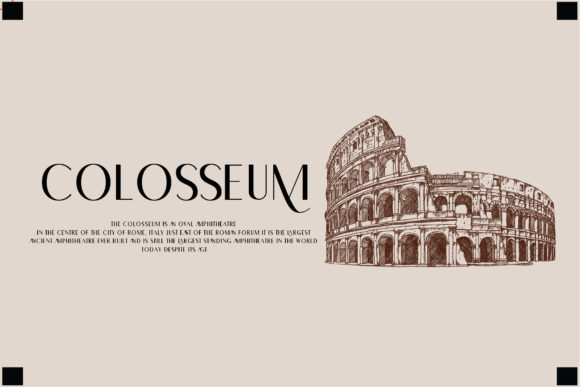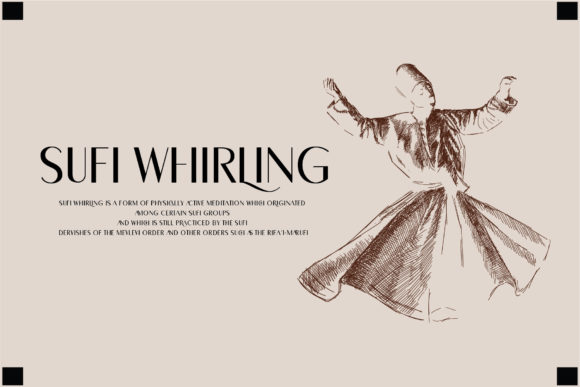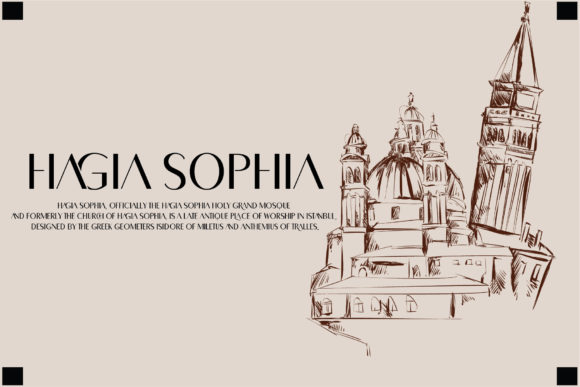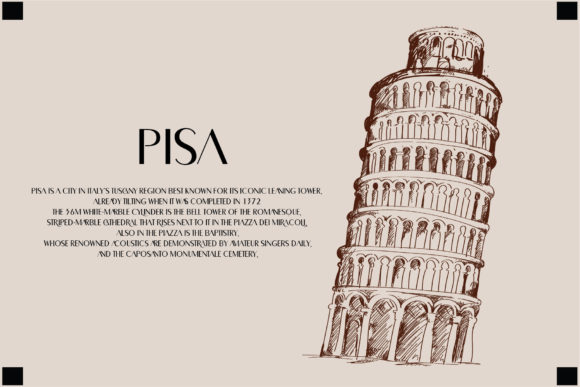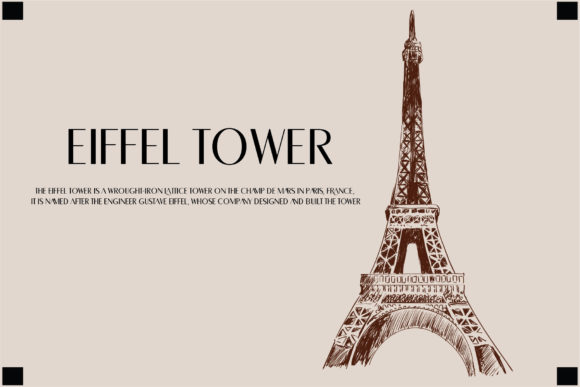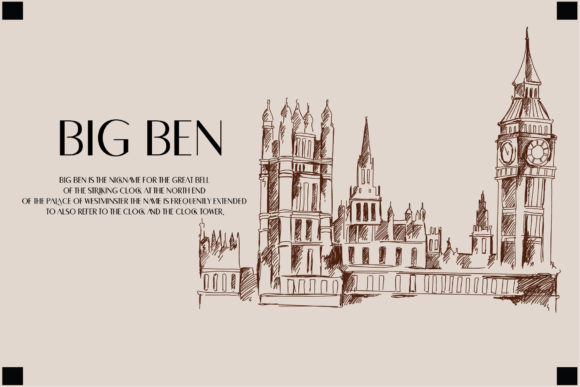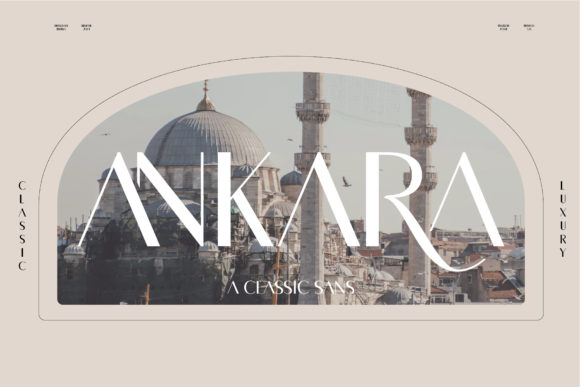
Discover the Elegance of Ankara Font: Elevate Your Designs with Luxury and Authenticity
In the world of typography, fonts play a crucial role in conveying the tone and personality of a brand or design. For creative projects that demand stylish and exquisite typography, the Ankara Font stands out as a splendid sans serif font created with luxury and authenticity in mind. In this article, we’ll explore the features and applications of Ankara Font, and why it’s perfect for personal branding projects, jewelry logos, fashion magazines, invitations, and more.
What is Ankara Font?
Ankara Font is a modern sans serif font designed to bring a touch of elegance and sophistication to any design project. Its clean lines, precise curves, and balanced proportions make it an ideal choice for designers seeking to create visually stunning typography. The font’s luxury aesthetic is perfect for high-end brands, fashion designers, and crafters who want to add a touch of exclusivity to their work.
Key Features of Ankara Font
- Luxurious and Authentic Design: Ankara Font boasts a unique and authentic design that exudes luxury and sophistication.
- Sans Serif Elegance: The font’s sans serif style provides a clean and modern look, perfect for designs that require a touch of elegance.
- Highly Versatile: Ankara Font is suitable for a wide range of design projects, from personal branding to fashion magazines and invitations.
- Easy to Read: The font’s clear and balanced design ensures excellent readability, making it perfect for body text and headlines.
Applications of Ankara Font
Ankara Font is an incredibly versatile font that can be used in various design projects, including:
- Personal Branding Projects: Create a lasting impression with Ankara Font’s luxurious and authentic design, perfect for personal branding projects that require a touch of exclusivity.
- Jewelry Logos: The font’s elegant and sophisticated design makes it an ideal choice for jewelry logos that require a high-end look.
- Fashion Magazines: Ankara Font is perfect for fashion magazines that demand stylish and exquisite typography.
- Invitations: Add a touch of luxury and sophistication to your invitations with Ankara Font’s elegant design.
- Packaging Design: Use Ankara Font to create eye-catching packaging designs that reflect your brand’s luxury aesthetic.
Why Choose Ankara Font?
With so many fonts available, why choose Ankara Font for your design projects? Here are a few compelling reasons:
- Unique and Authentic Design: Ankara Font’s luxurious and authentic design sets it apart from other fonts, ensuring your designs stand out from the crowd.
- High-Quality Typography: The font’s clear and balanced design ensures excellent readability and aesthetics, making it perfect for high-end designs.
- Time-Saving: With Ankara Font, you can save time and effort in creating custom typography, allowing you to focus on other aspects of your design project.
| Font Name | Ankara Font |
| Author | Teweka |
In conclusion, Ankara Font is a splendid sans serif font created with luxury and authenticity in mind. Its elegant and sophisticated design makes it perfect for creative projects that demand stylish and exquisite typography. Whether you’re working on personal branding projects, jewelry logos, fashion magazines, invitations, or packaging design, Ankara Font is an excellent choice. With its unique and authentic design, high-quality typography, and versatility, Ankara Font is sure to elevate your designs to the next level.